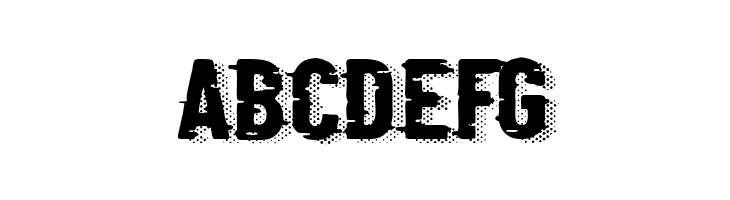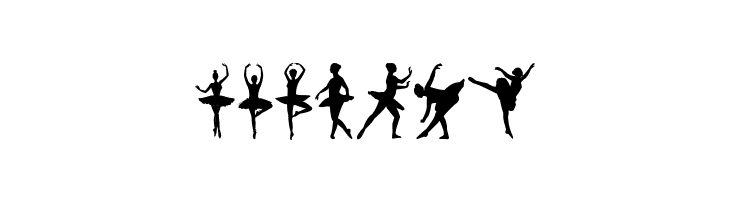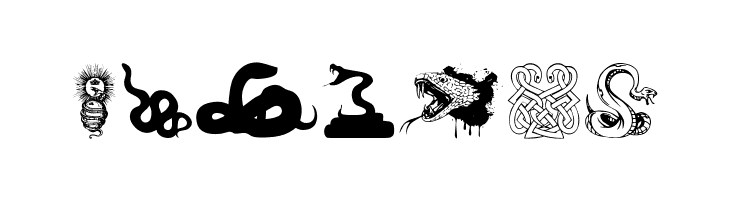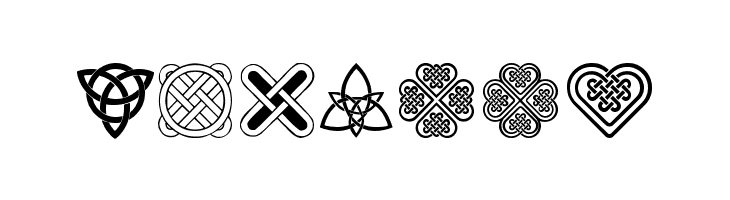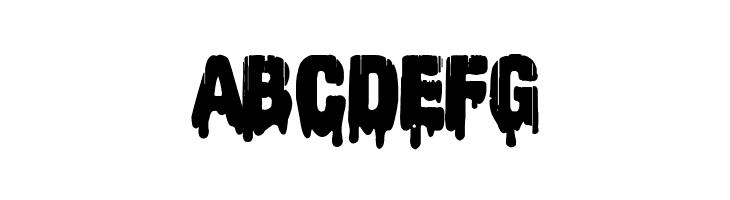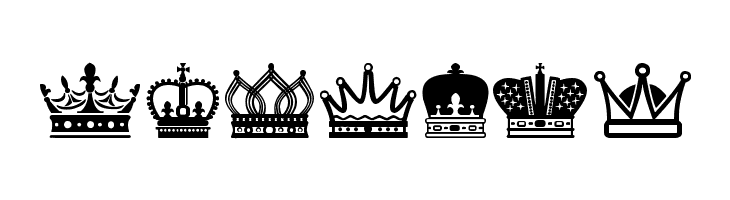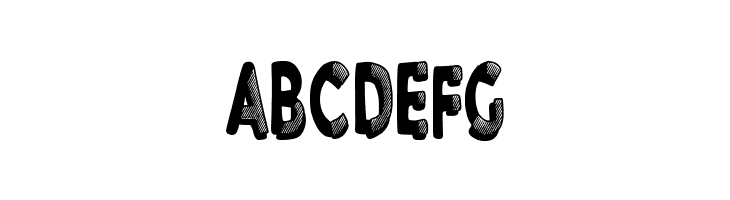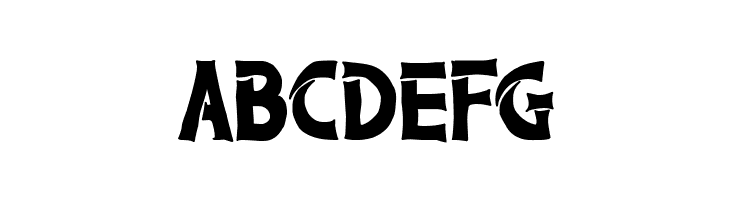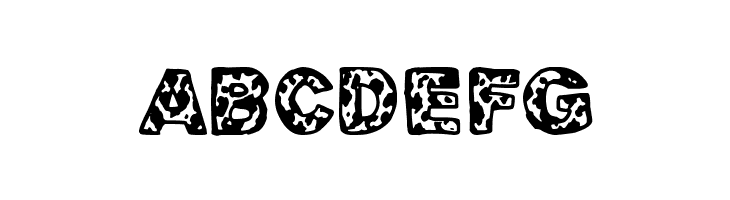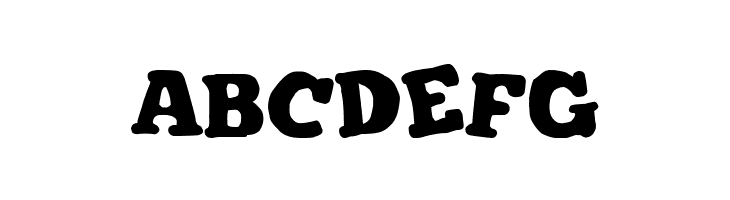
A bold, angular font inspired by ancient runic alphabets.
Bold, shadowed font with a modern, geometric style.
A decorative icon font featuring hand-drawn planets and celestial bodies.
A bold, distressed font with a vintage halftone texture.
Silhouette-style decorative set of ballet dancers and shoes.
A decorative, snake-themed font with artistic, bold designs.
Ornamental font with diverse Celtic knotwork symbols.
A diverse collection of ampersand designs ranging from modern to vintage styles.
A bold, dripping font with an edgy, artistic style.
A bold decorative font with diverse crown and royal iconography.
A bold, hand-drawn font with textured diagonal lines.
A bold, decorative font with dotted outlines and a playful, modern-retro style.
A bold, edgy font with sharp, angular edges and a distressed look.
A bold, textured font with a playful and rugged appearance.
A playful, bold font with exaggerated curves and a whimsical style.
A glitchy, distorted font with a digital error aesthetic.
A bold, rugged font with a distressed, hand-drawn appearance.
A bold, distressed decorative font with a vintage, rugged texture.
A bold, distressed font with a vintage, handcrafted feel.
A bold, playful font with thick, rounded strokes and a hand-drawn feel.
A playful, hand-drawn font with decorative dots and irregular strokes.
A bold, playful, hand-drawn style font with a whimsical and artistic feel.
A distressed serif font with a vintage, rugged appearance.
A bold, distressed font with a gritty, splattered effect.
A bold, distressed font with splattered, grunge-style characters.
A bold, chunky font with a playful, retro aesthetic.
A bold, rounded font with a strong and playful presence.
A bold, playful font with a hand-drawn, energetic style.
A bold, textured font with a playful, hand-painted style.
A bold, gothic Blackletter font with intricate, angular designs.
A bold, decorative font with a unique zigzag pattern and thick strokes.
A bold, hand-drawn font with a playful and artistic style.
Bold, dripping decorative font with a horror vibe.
A bold, dripping blackletter display font with a horror vibe.